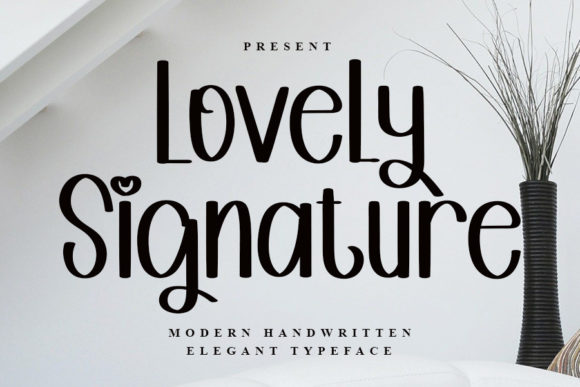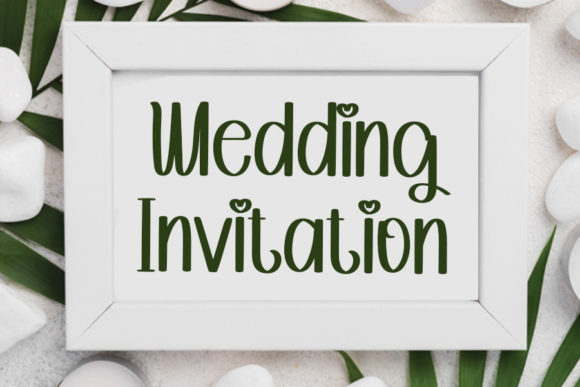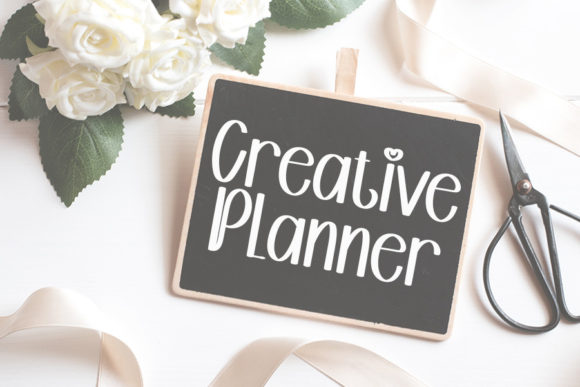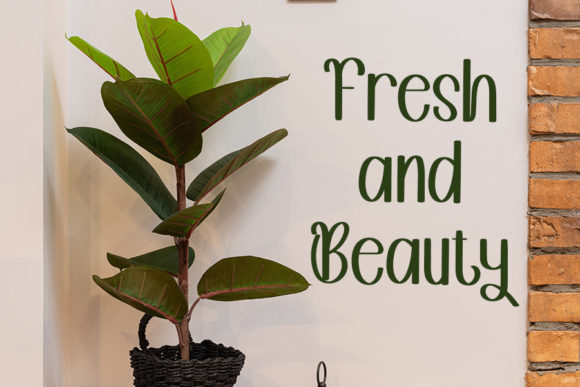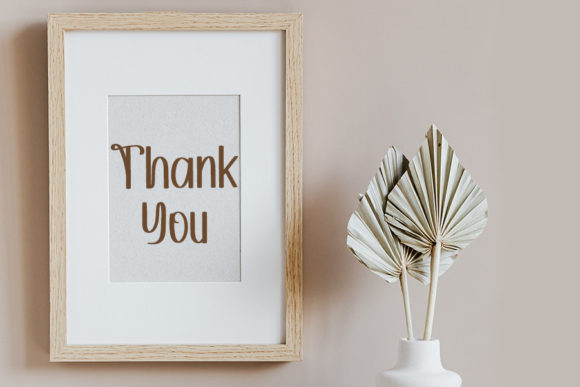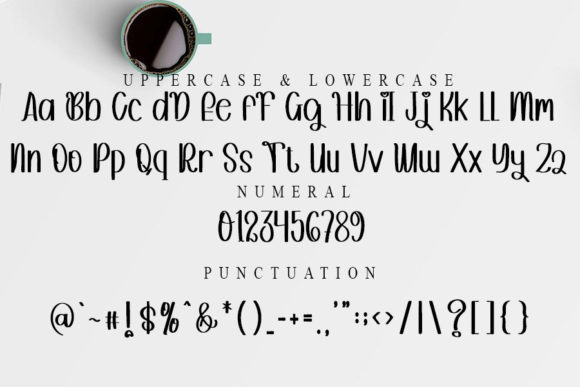
Lovely Signature Font
About Lovely Signature Font
Lovely Signature is a chic and dainty handwritten font, that features a relaxed and sweet style. It is defined by smooth curves and is perfect for fashion branding or editorial designs.